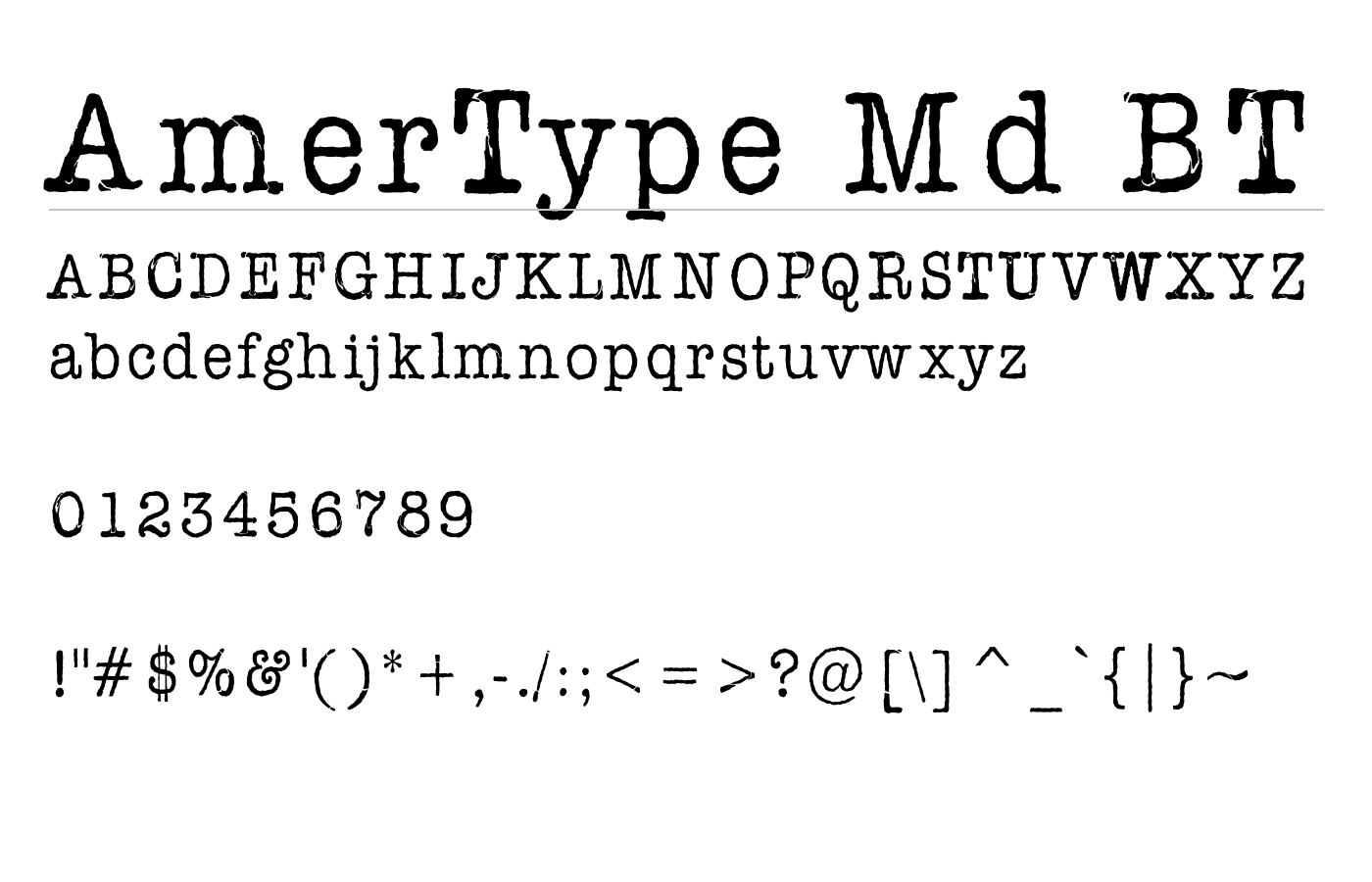
AFL Font Nonmetric is a distressed serif typewriter-style font that evokes a vintage and rugged feel, perfect for designs seeking an authentic, classic look. It features medium weight with normal width, showcasing irregular edges and high contrast between strokes that mimic old mechanical typewriter prints. Ideal for editorial projects, retro branding, or artistic posters, this font brings character and nostalgia without sacrificing legibility.
AFL Font nonmetric Font
About AFL Font nonmetric Font